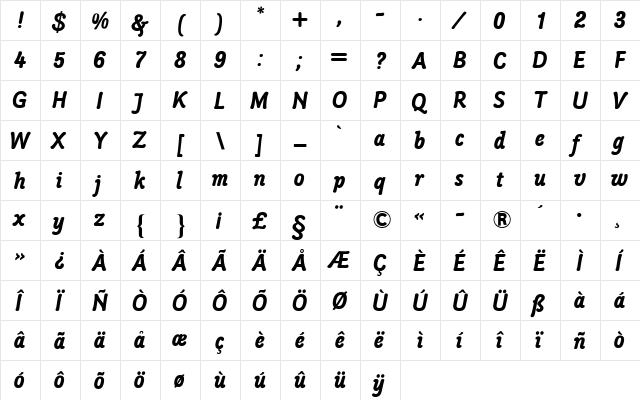
Poppl-College One BQ Bold
Design Context for Poppl-College One BQ Typeface
Poppl-College One BQ brings high-energy athletic personality to the page — its confident, muscular forms are built for impact. Its bold stroke weight gives it real presence on the page.
A natural choice for gym brands, fantasy sports, jersey lettering, and action-driven headlines.
Font Pairing: Use alongside a condensed or geometric sans for supporting copy — keep the pairing bold, functional, and free of ornament.
Pro Tip: Use Poppl-College One BQ in all-caps headlines where its athletic energy can fully express itself. Pair with a solid, simple sans for supporting text.